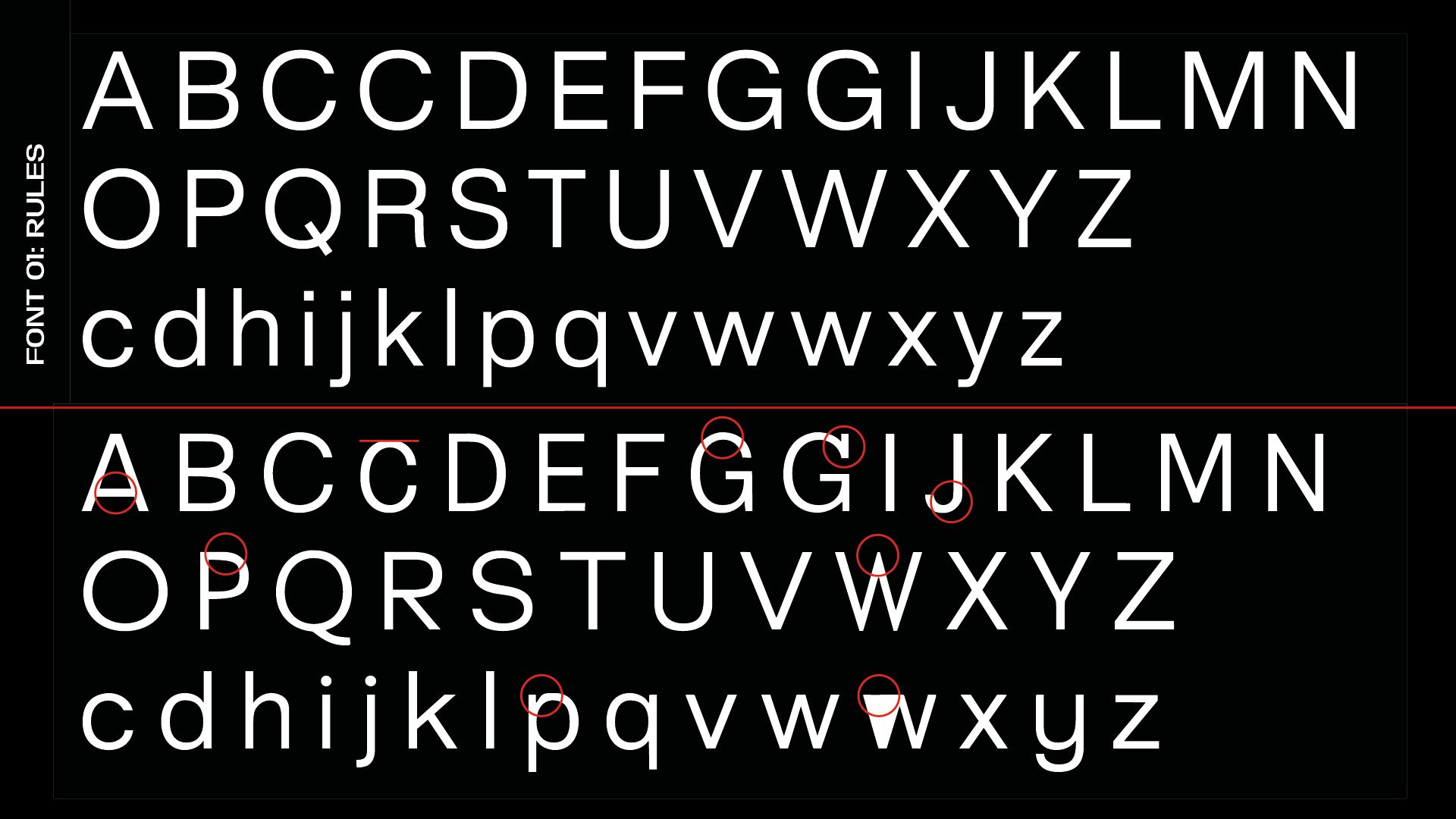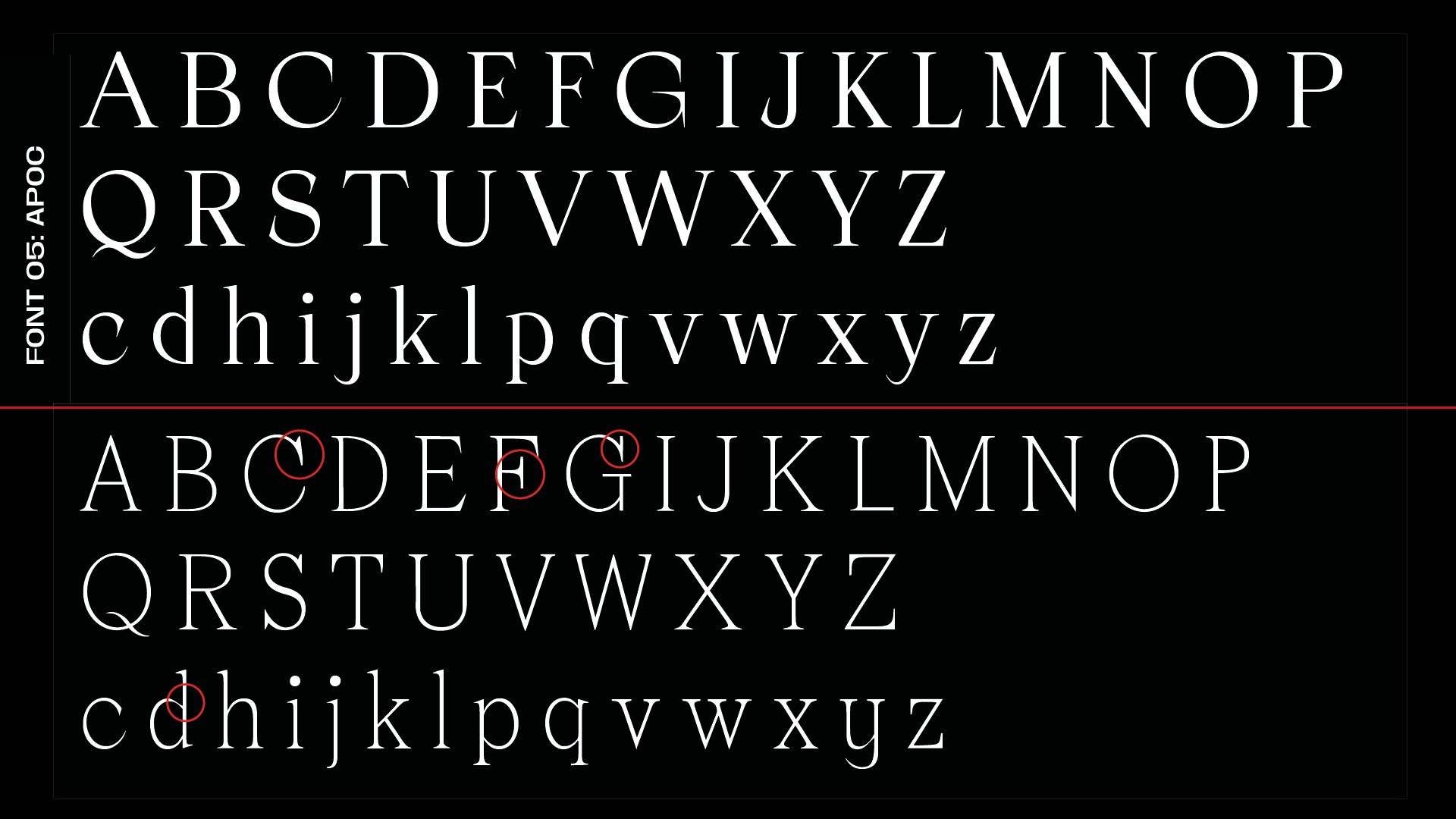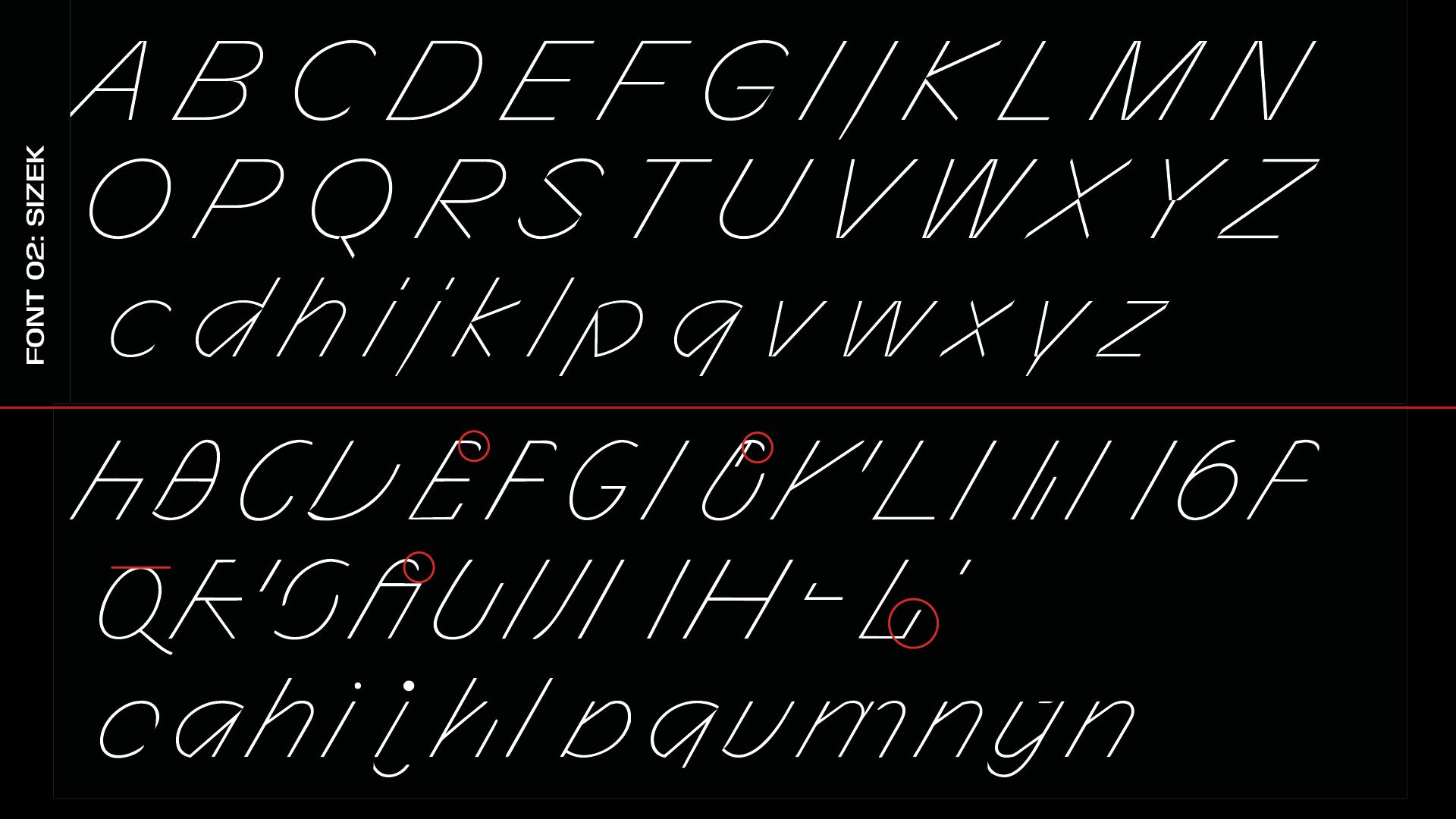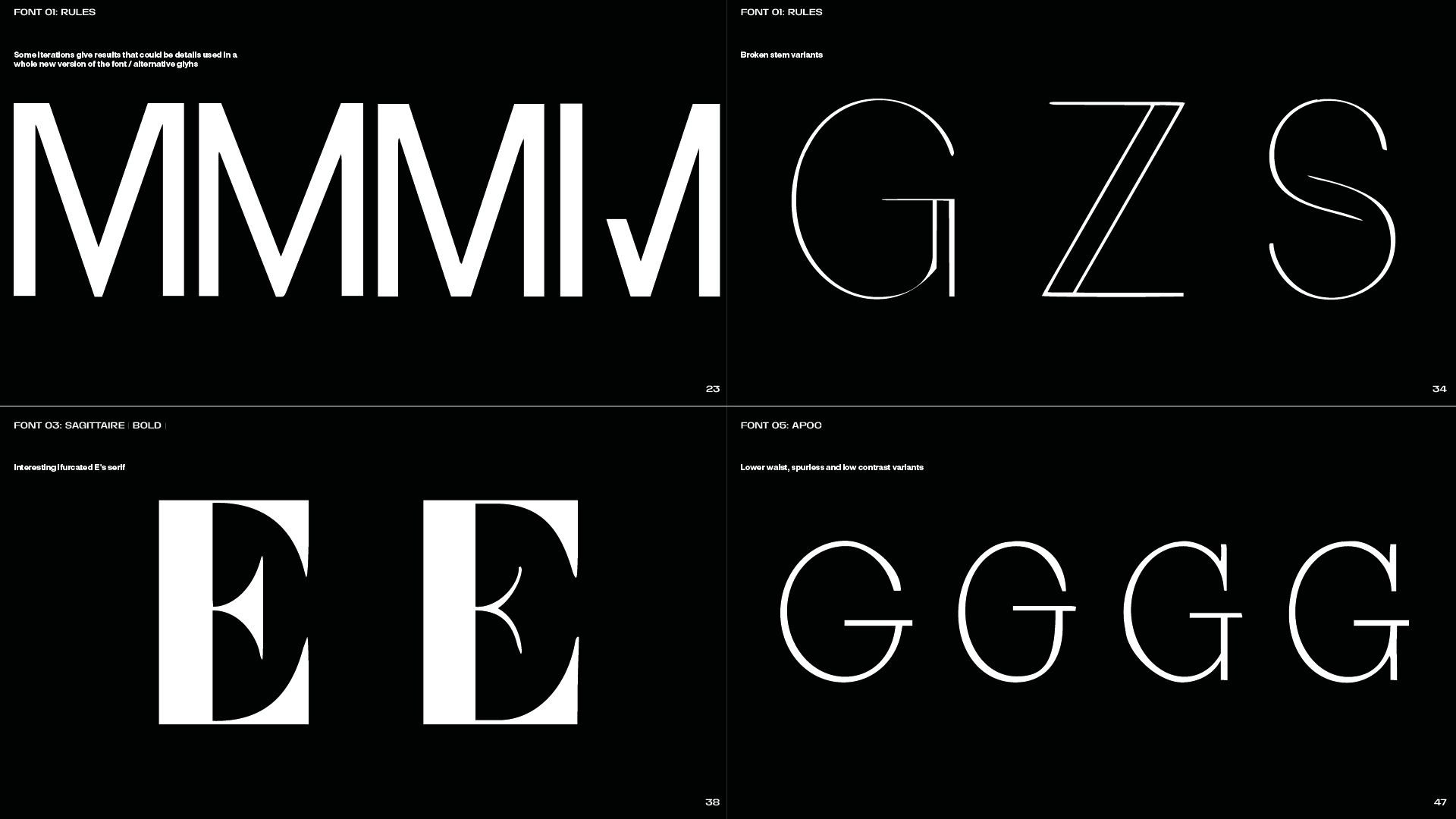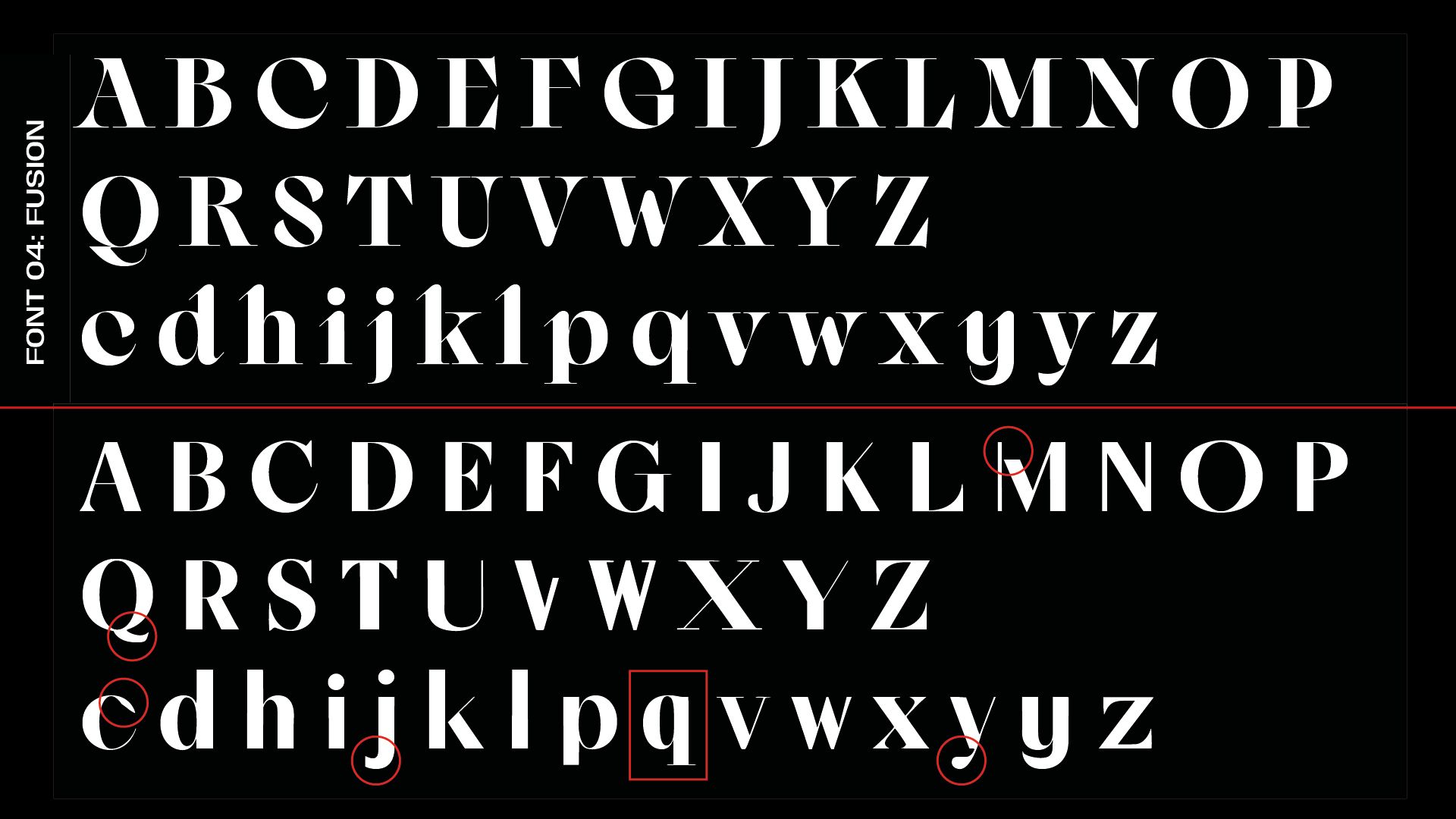
Matthieu Salvaggio, Blaze Type CEO
Typographic art between hand, machine and AI
Art is born from the meeting between creativity and technique: without the latter, the idea remains an invisible skeleton, an empty shell. The first type designers were often themselves punchcutters. And yet, while the hand executes, it is the eye that judge. Typographic design, as a conceptual form, can then be faithfully materialized - whether in metal, on typesetting film, or today, through Bézier curves.
Technology has always been at the service of the type designer, giving him or her extensive control over the production chain. Digital technology, in particular, has proved invaluable in automating the most repetitive tasks: interpolating weights, generating obliques and creating diacritical glyphs.
To date, the use of artificial intelligence in typographic design remains more a source of speculation and fear than concrete realization. The first experiments, while promising, often produce superficial or deliberately playful results: 3D letters, photorealistic renderings... but badly stretched curves, incoherent serifs and an overall lack of graphic cohesion. All of which are still too approximate to convince the industry's professionals.
A few months later, the French foundry joined Monotype's research team to experiment with its generative AI tool. Critical feedback was unveiled during Brand Talks in London on June 12, 2025.
A rigorous protocol for typographic AI
After a brief presentation of the foundry and its emblematic creations, Matthieu Salvaggio sets out the experimental framework. Monotype's AI is based exclusively on typography property of the brand. Each glyph is stored into Bézier curves, making it possible to generate an entire alphabet from a few vector characters from a single font - in this case, Apoc, Fusion, Rules, Sagittaire and Sizek.
The approach requires no text prompt. The type designer simply feeds a few glyphs into the system, which the AI uses as a basis for extrapolating the others.
The Blaze Type team has therefore drawn up a strict protocol, based in particular on the famous "Hamburgefonstiv": a sample of letters supposed to reflect the diversity of typographic forms. This test highlights the AI's ability - or inability - to reconstitute an entire alphabet from this minimal base. One of the major challenges lies in the imbalance between numerous lower-case letters and single capitals, a disadvantage for the AI.
Rules: on top, the original font; below, the AI generated glyphs.
Sizek: on top, the original font; below, the AI generated glyphs.Rules: on top, the original font; below, the AI generated glyphs.
Sagittaire: on top, the original font; below, the AI generated glyphs.
Fusion: on top, the original font; below, the AI generated glyphs.
Apoc: on top, the original font; below, the AI generated glyphs.
Results: between promises and approximations
The flaws are still numerous:
- curves lacking tension or precision;
- failure to respect x-height;
- too narrow a caster for several glyphs;
- missing or inconsistent serifs (adding slabs to fonts without);
- and above all, isolated stylistic choices that break the overall coherence.
But these "accidents" can paradoxically open up unexpected avenues. Certain atypical characters generated by AI can be used as alternates, to create new titling variants, or even to initiate the creation of new type families.
And let's not forget the rapid progress of generative tools. Between the summer of 2023 and today, the quality of AI productions in images and text has made a significant leap forward. It's therefore reasonable to imagine a similar evolution for typography.
Some common problems crossed with the Monotype generative AI: 1. possible alternates glyphs,
2. broken stem variants
3. interesting serif variation
4. lower waist, spurless & low contrast variants
“But it is also a marvelous thing to witness and use and discover. If we manage things well, it’s going to be an amazing adventure to be working with AI in our day-to-day activities. Production-wise, I think AI is going to be a massive game changer. I’d like to keep my eye on how AI will integrate with concepting, but it’s certain that people are going to use AI on projects from A to Z at some point.”
Towards a well-guided “trainee” AI?
Imagine a better-guided AI, fed by a more relevant glyphset: ABEHOV for capitals, abgov for lowercase. These letters contain fundamental structures from which many other characters can be deduced. E prefigures F, L, H; B and O give rise to C, D, G, P, Q...
We could even envisage an AI capable of extrapolating weights (from Hairline to Ultra Black), optical corrections (Titling, Text, Caption), variants (Italic), even linguistic extensions (Greek, Cyrillic). In the long term, why not hope for intelligent automatic kerning, or complete generation of diacritical characters without having to manually place anchors?
Type design is an art of patience, made up of micro-adjustments, meticulous observations and subtle decisions. As such, AI won't replace the designer's eye or intention, but it promises to become a valuable assistant. By automating repetitive tasks, it will free up time for what lies at the heart of the discipline: formal invention, visual coherence and the emotion of signs.
The future of typography will not be written by machines, but with them. But the type designer must know how to train the tool to meet his requirements.